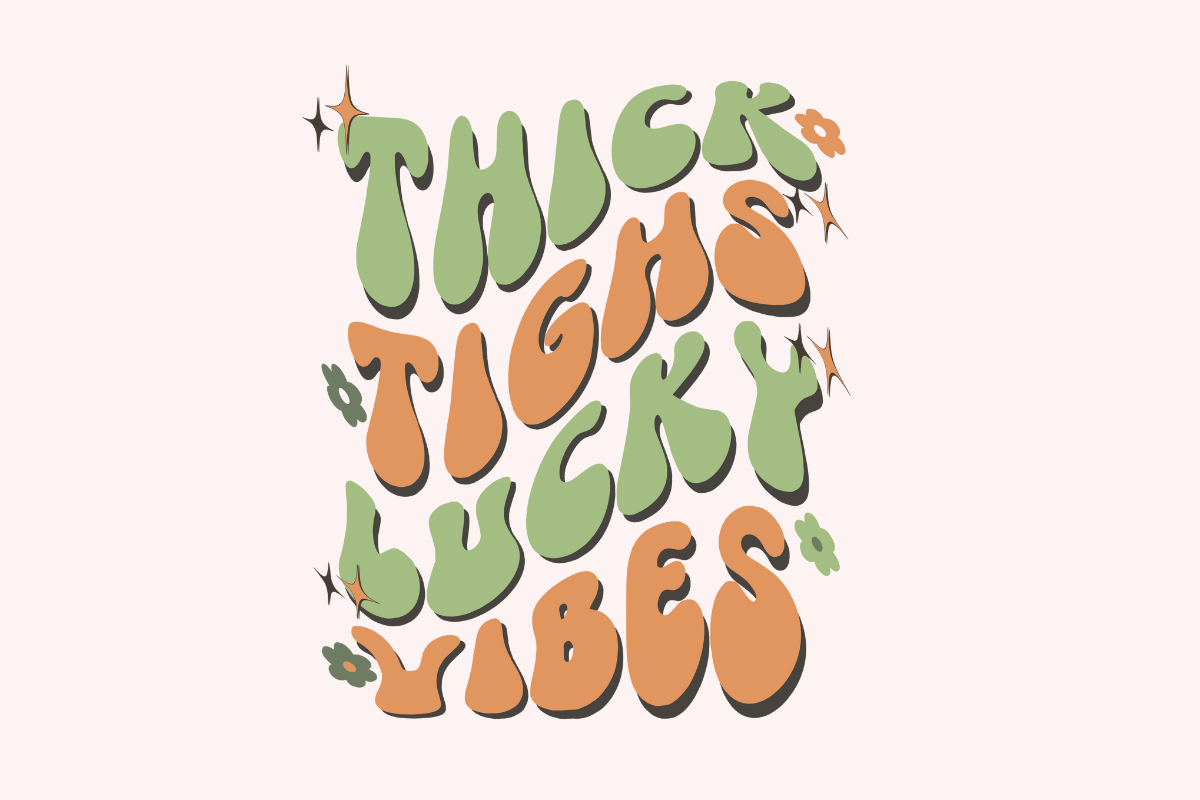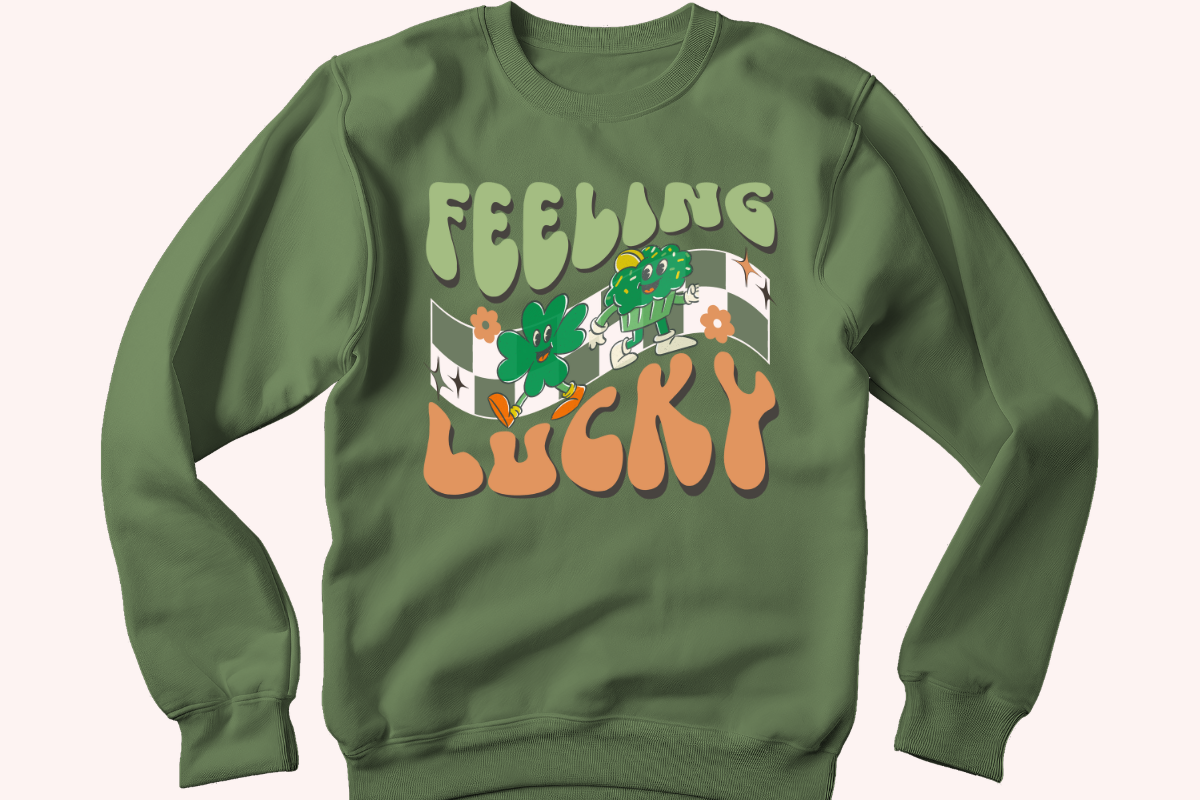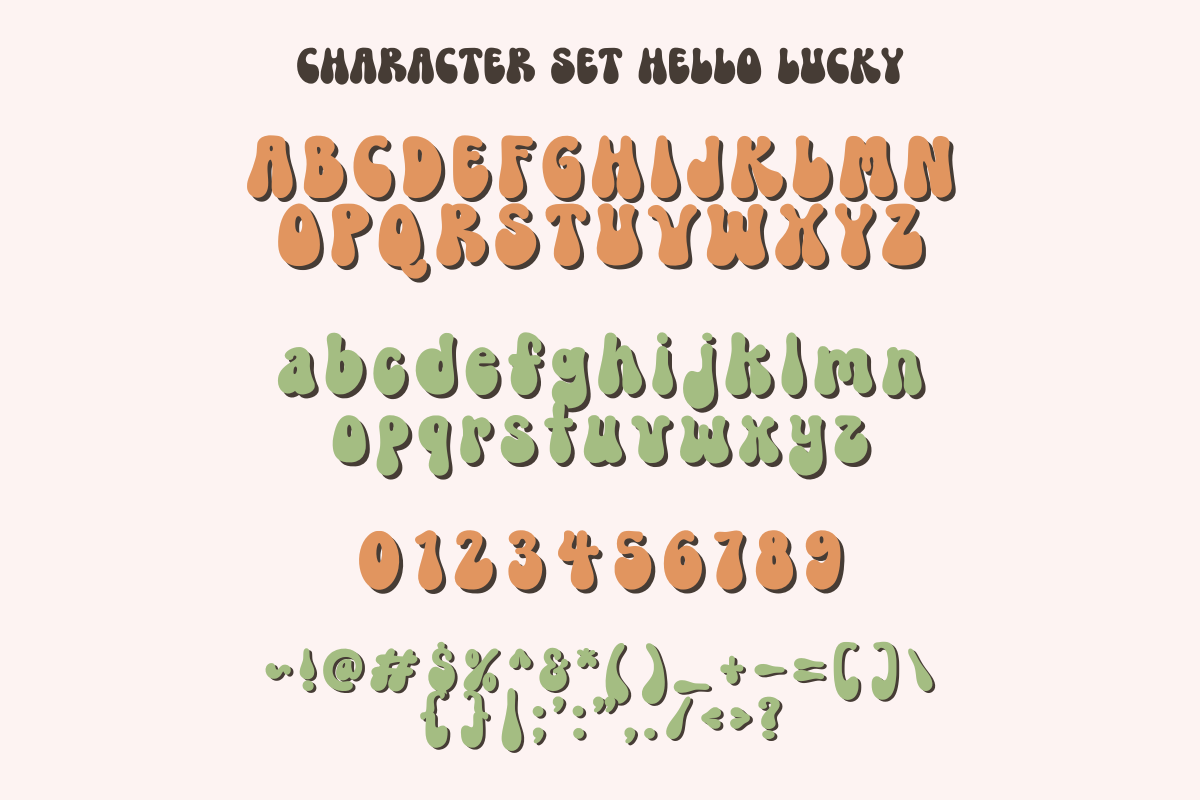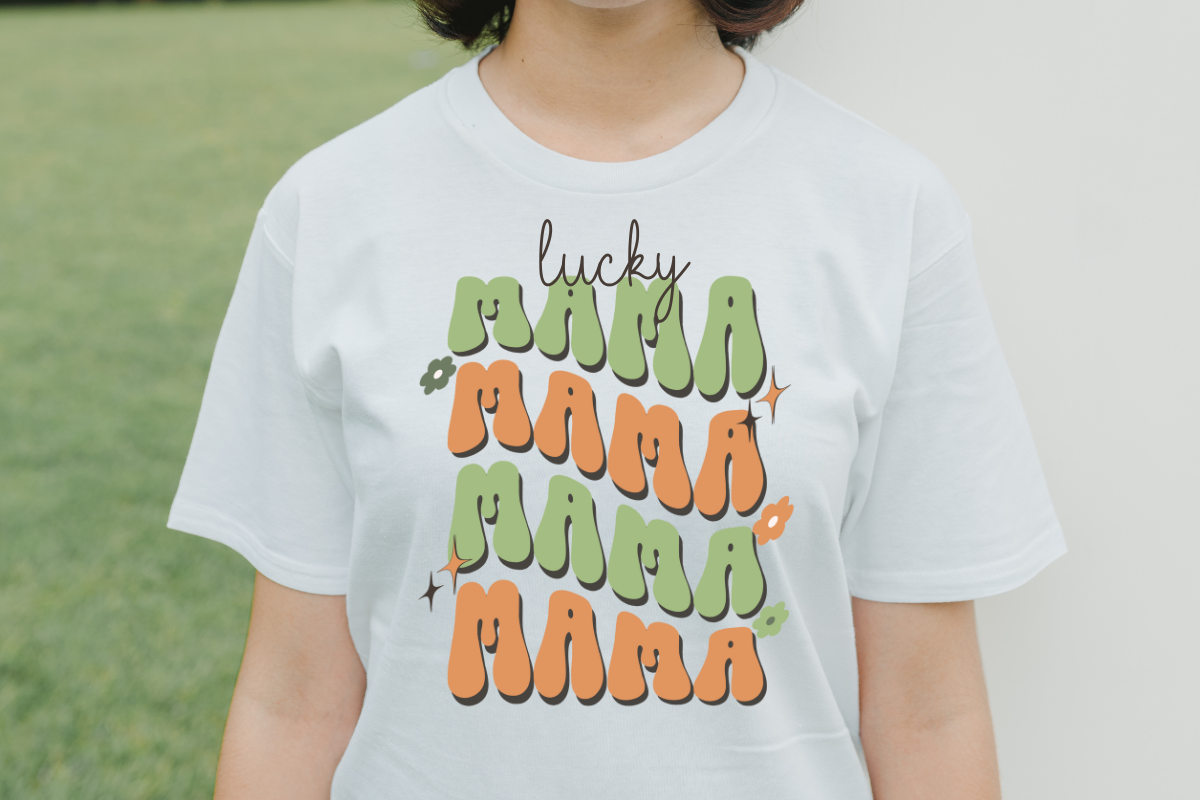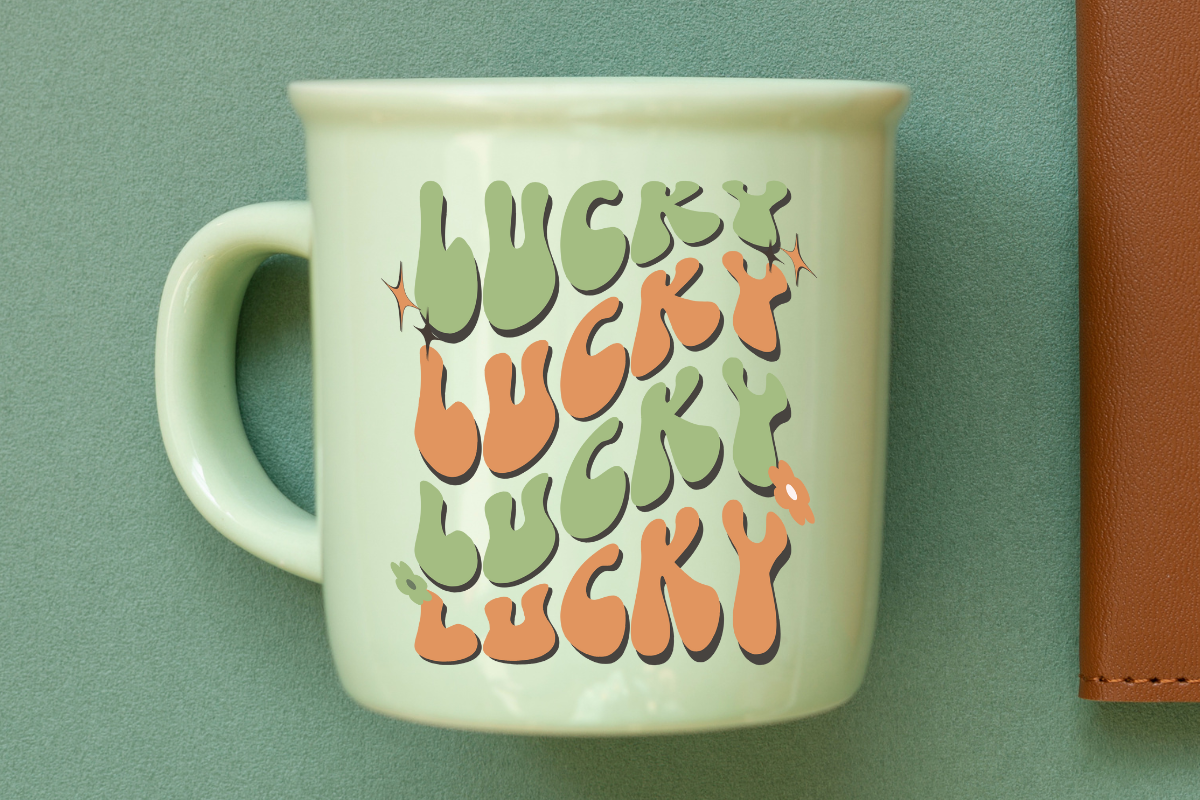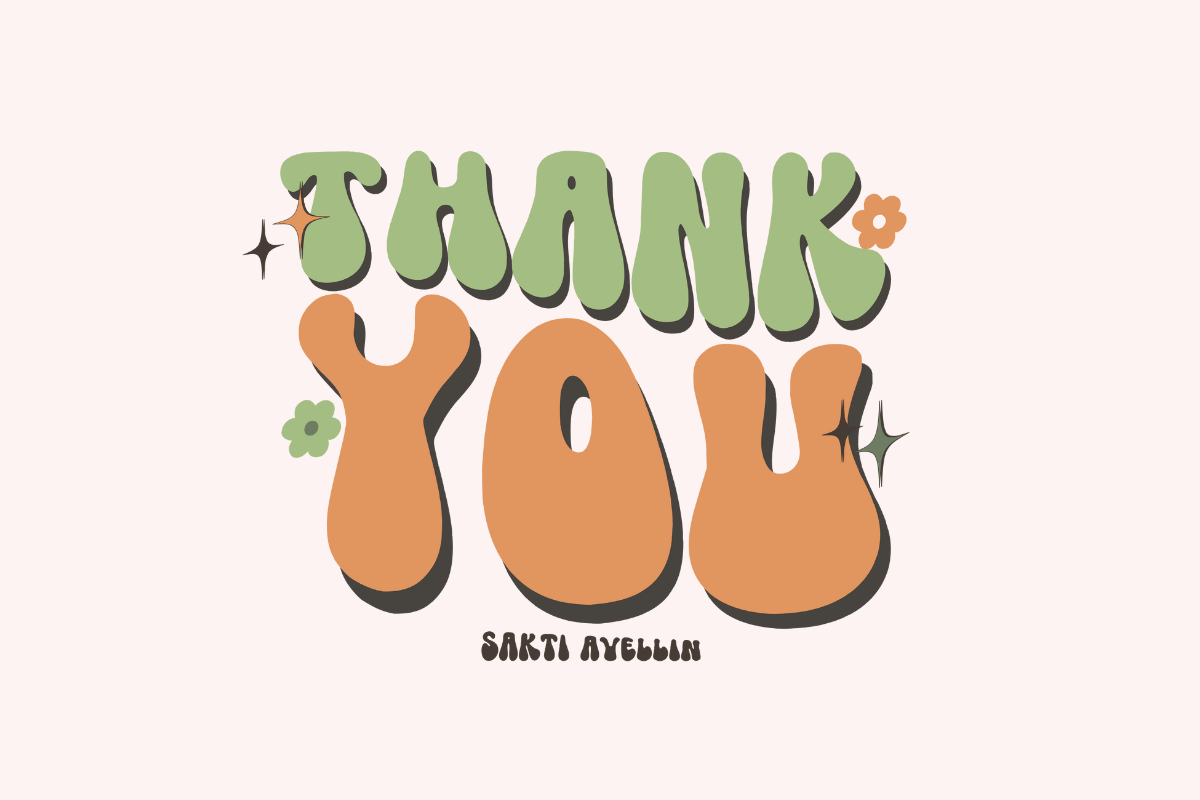
Hello Lucky
Dive into a vibrant and playful era with Hello Lucky! Imbued with a lively retro vibe, it's the ideal choice for adding a jubilant touch to your creative projects. Whether you’re looking to bring some St. Patrick’s Day charm to your designs or infuse vitality into your work, Hello Lucky is your go-to font. Be it a captivating book cover, stunning posters, whimsical packaging, expressive merchandise, fashionable t-shirts, or powerful quotes; this font breathes life into your design. Moreover, it effortlessly uplifts logotypes, assisting you to create striking branding elements that stand out. Destined to be a favorite, dive into the joyous world of design with Hello Lucky!